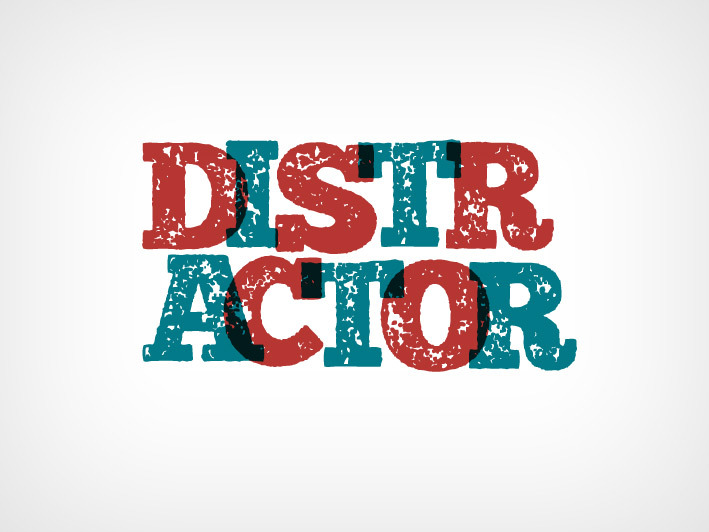
Distractor is a woodtype and letterpress hybrid font loosely based on Bevan. Its bold distressed display makes for a great headline font, it gives your work that tactile feeling.
The inspiration behind it, the old letterpress styles and hand printed lettering – I just love that hand printed, worn ink style.
Uppercase, Lowercase and numbers are included. I've updated it to include western and central european characters, and added a few more punctuation marks—around 280 glyphs now.